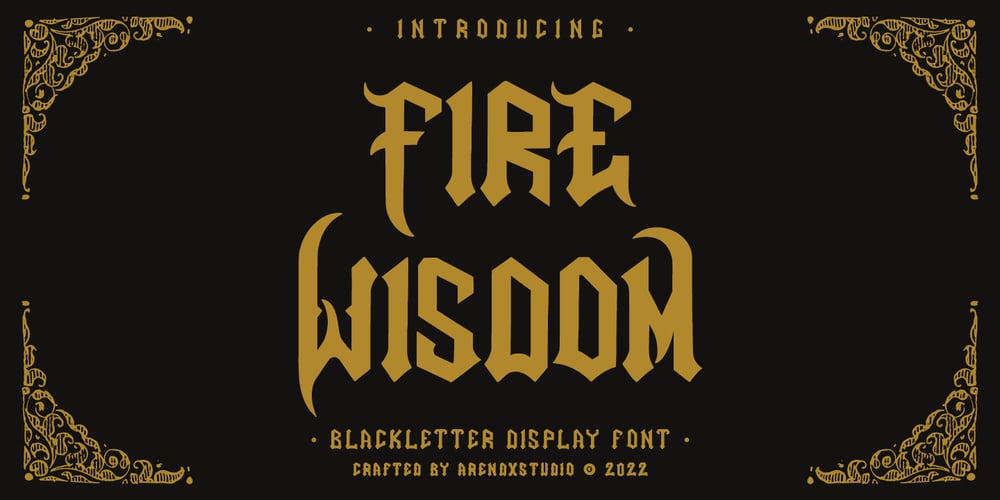
Fire Wisdom
Fire Wisdom font
Fire Wisdom Font Family was designed by Asep Rendi and published by Arendxstudio. Fire Wisdom contains 1 styles and family package options. Fire Wisdom – Blackletter Display Font is a display font that is inspired by gothic and horror style because its shape is very unique and is perfect for any project that you will use with this theme.Fire Wisdom with opentype features such stylistic alternates, stylistic sets & ligatures good for logotype, poster, badge, book cover, tshirt design, packaging and any more.Features :1.Uppercase & Lowercase 2.Multilingual support 3.Number 4.Symbol 5.Punctuation. 6.Extra Dingbat 7.Support in Mac and Windows OS -Support in design application (photoshop, illustrator, and more)